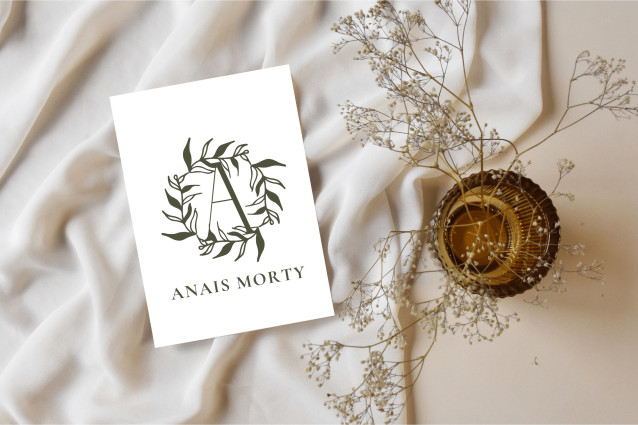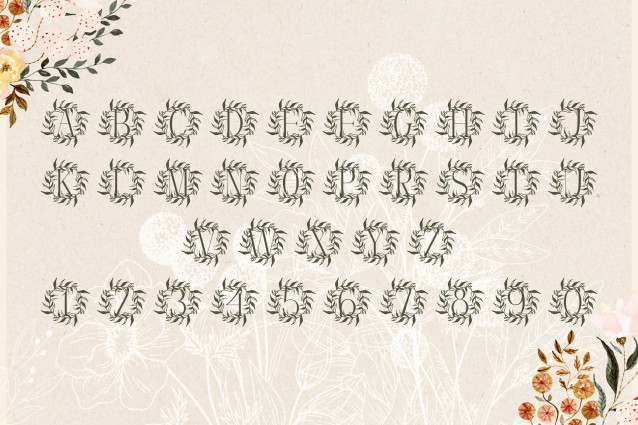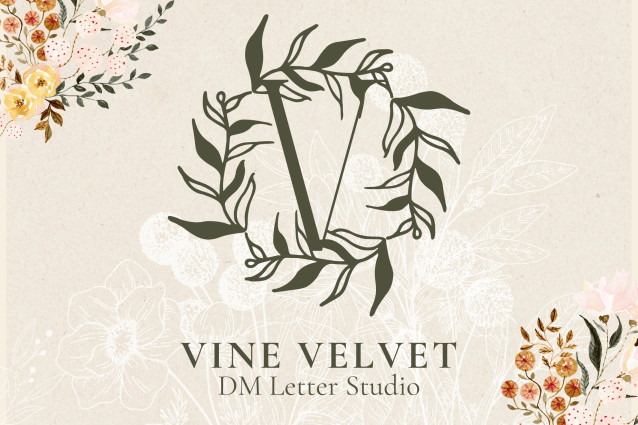
Vine Velvet Monogram Font
Vine Velvet Monogram Font is a luxurious serif monogram font adorned with graceful vine and leaf embellishments. Each uppercase letter is framed by delicate botanical elements that evoke softness, elegance, and timeless style. This font is ideal for upscale weddings, custom logos, nature-inspired branding, and personalized gifts that need a romantic touch.